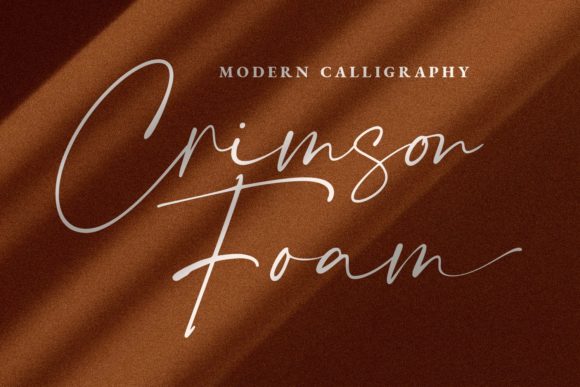
About Crimson Foam Font
Crimson Foam is a delicate, elegant and flowing handwritten font. It has beautiful and well balanced characters and as a result, it matches a wide pool of designs. Add it to your most creative ideas and notice how it makes them come alive!